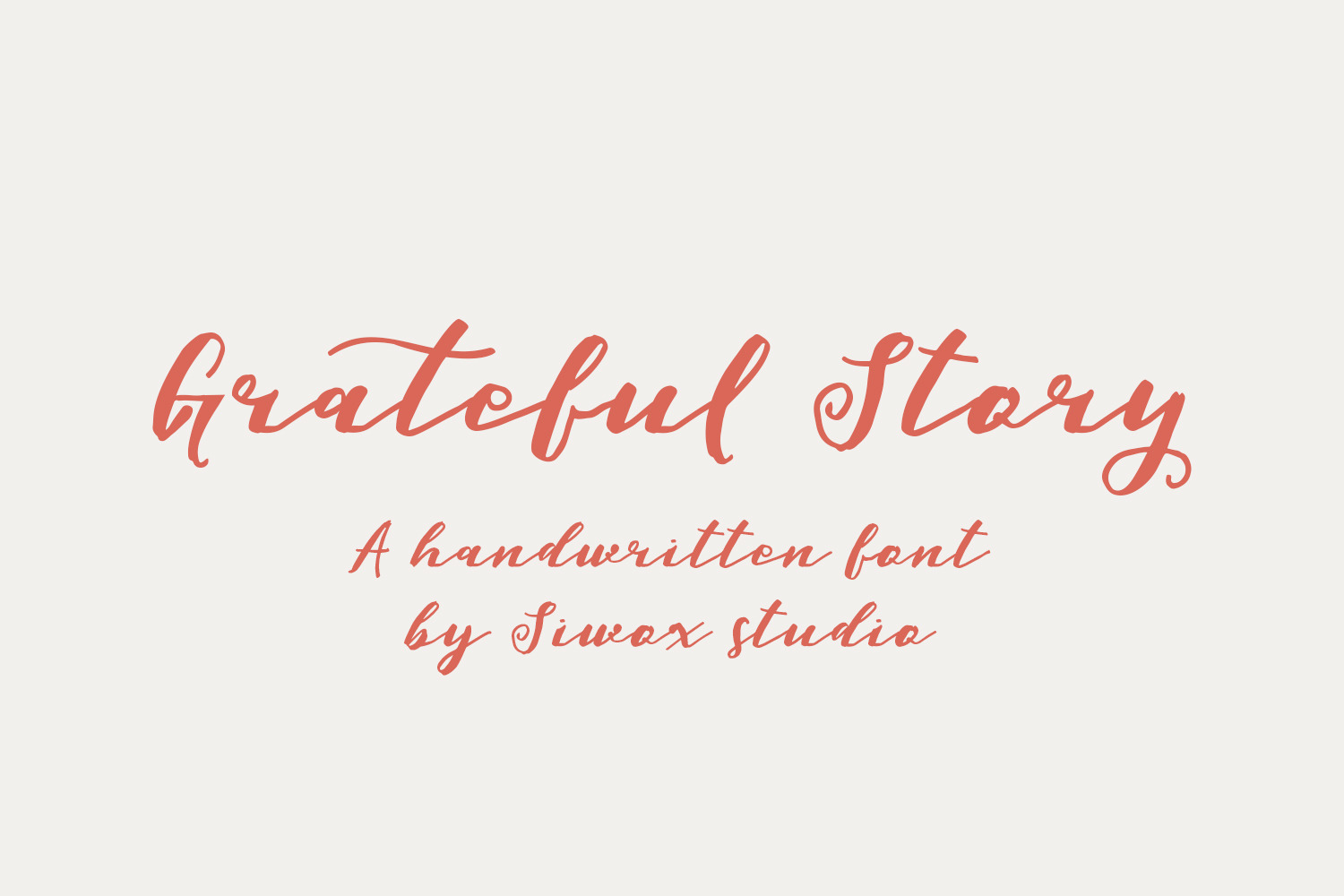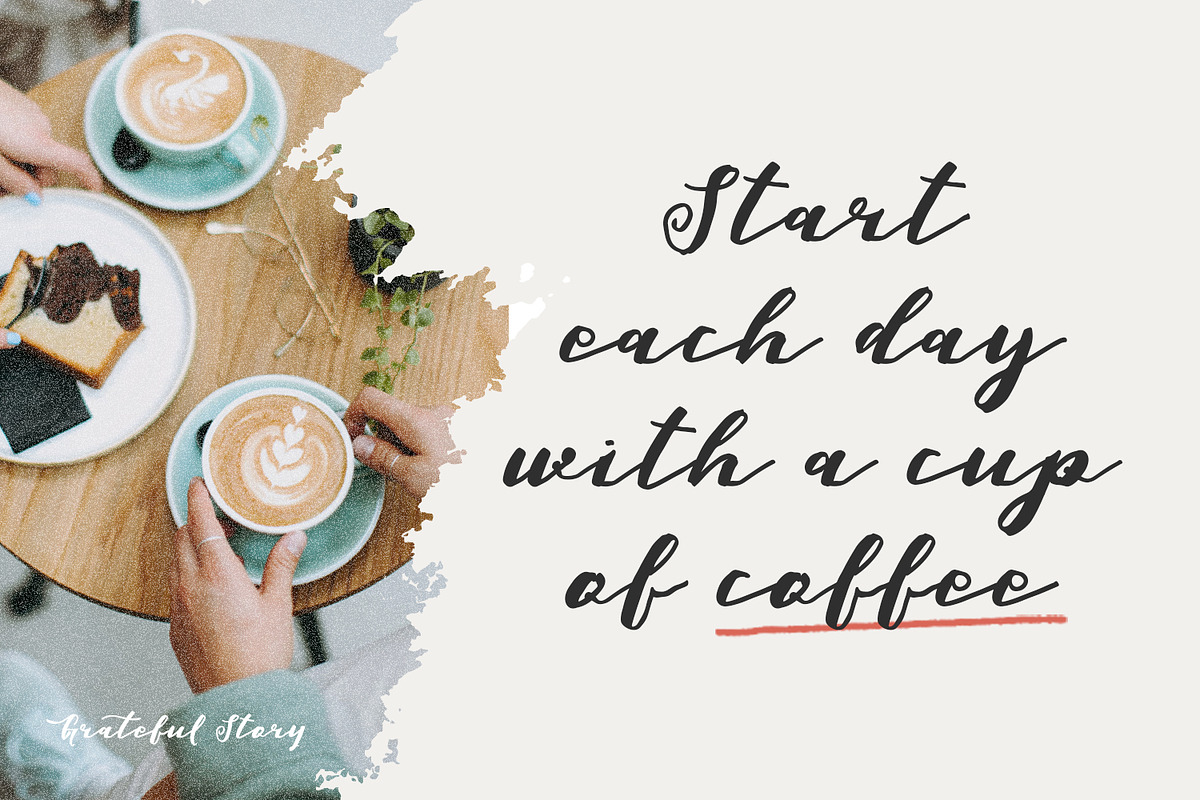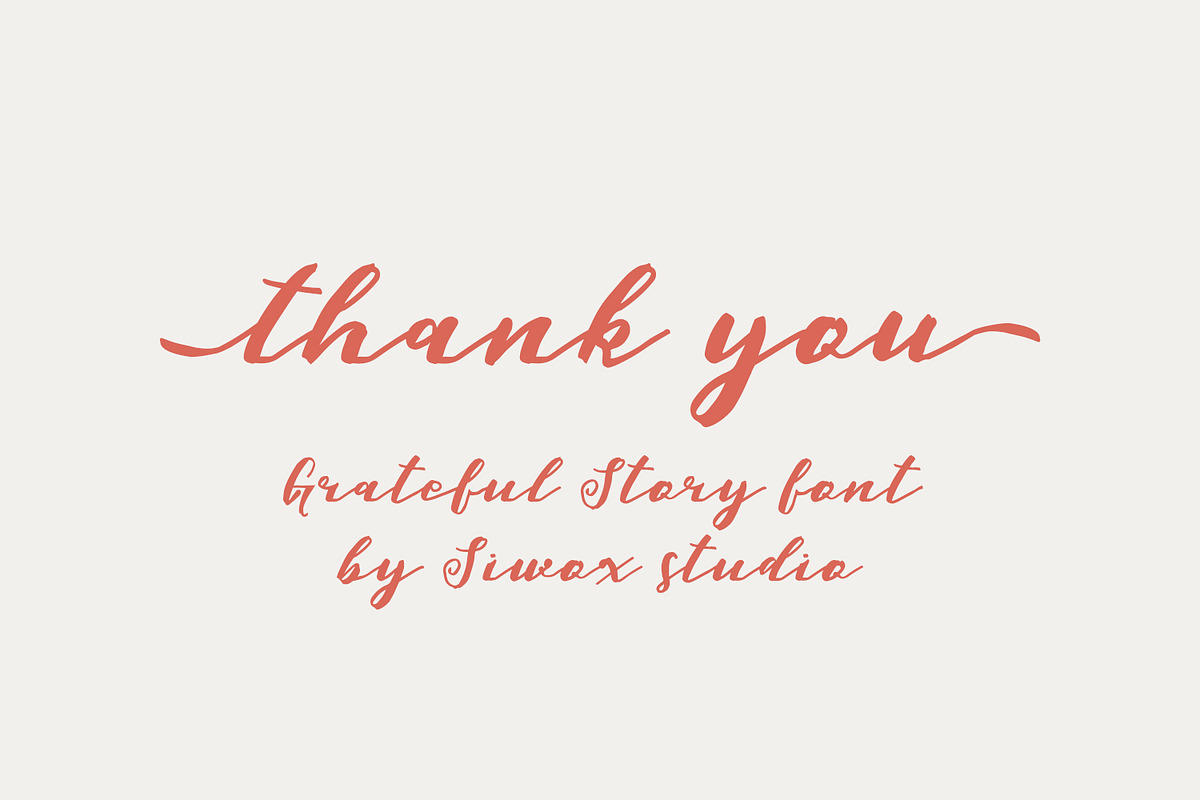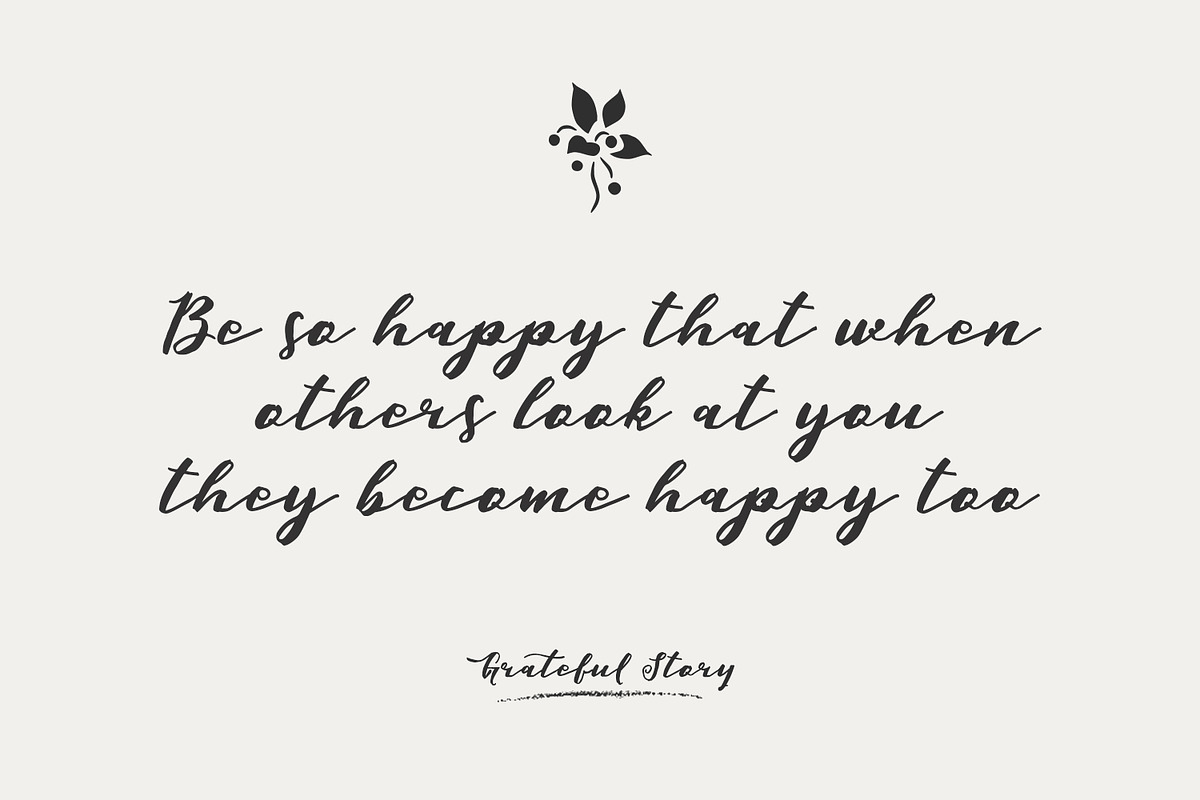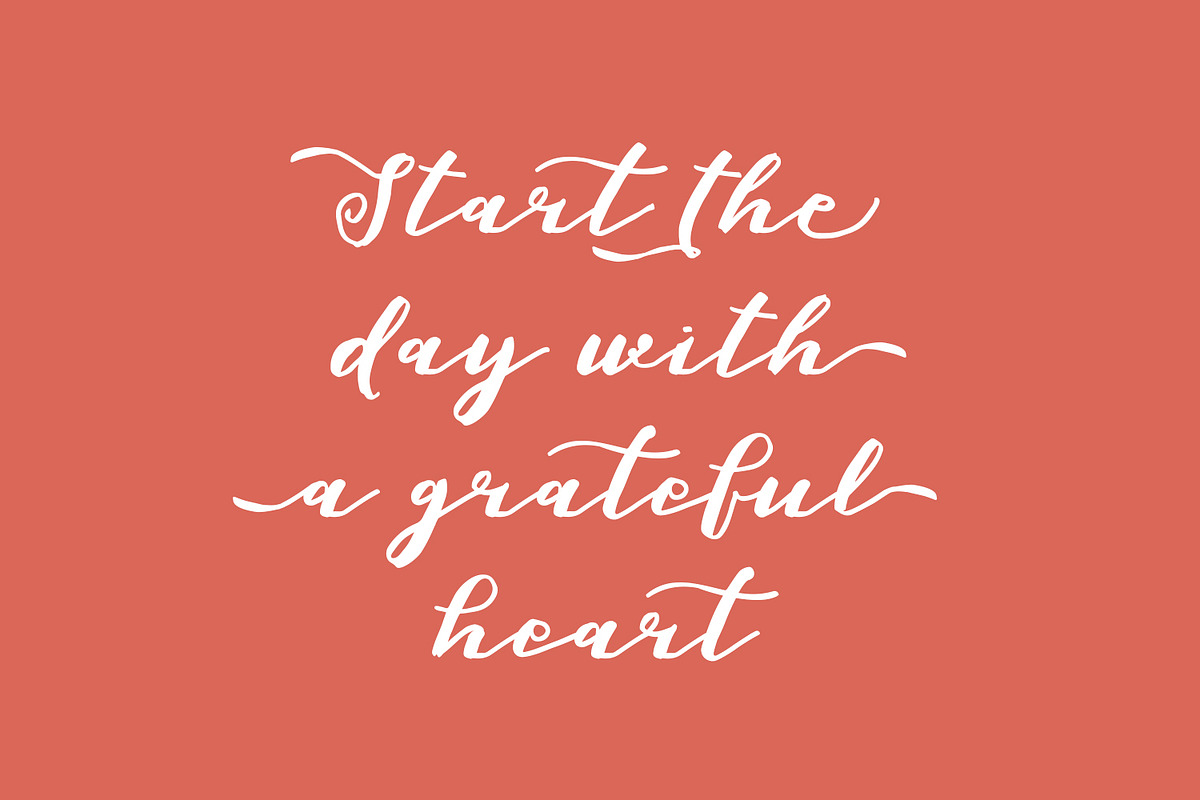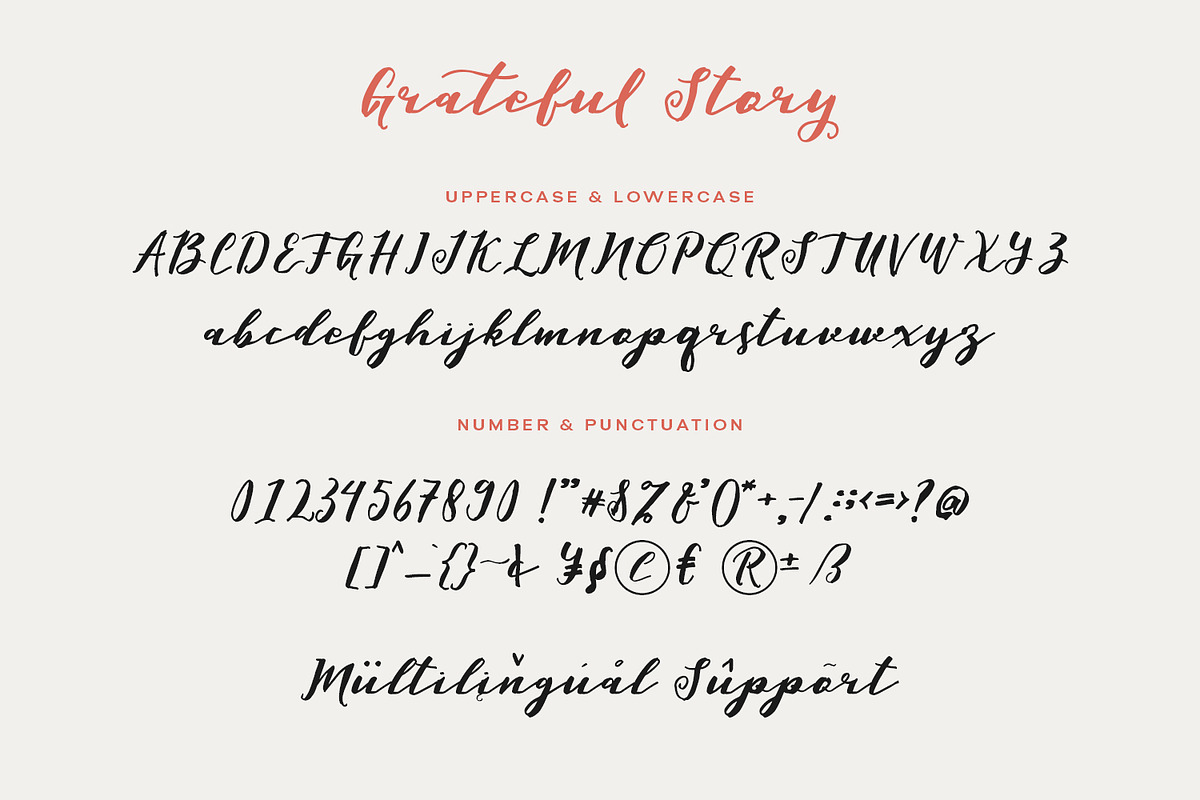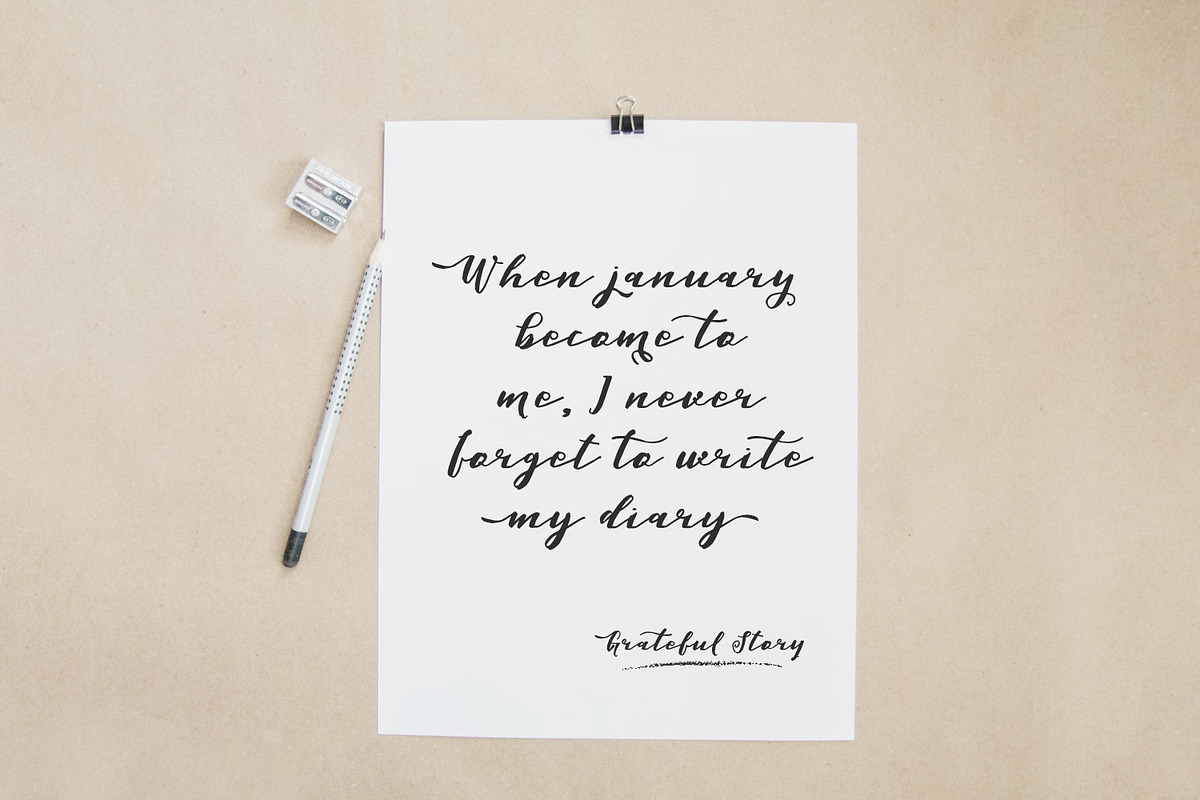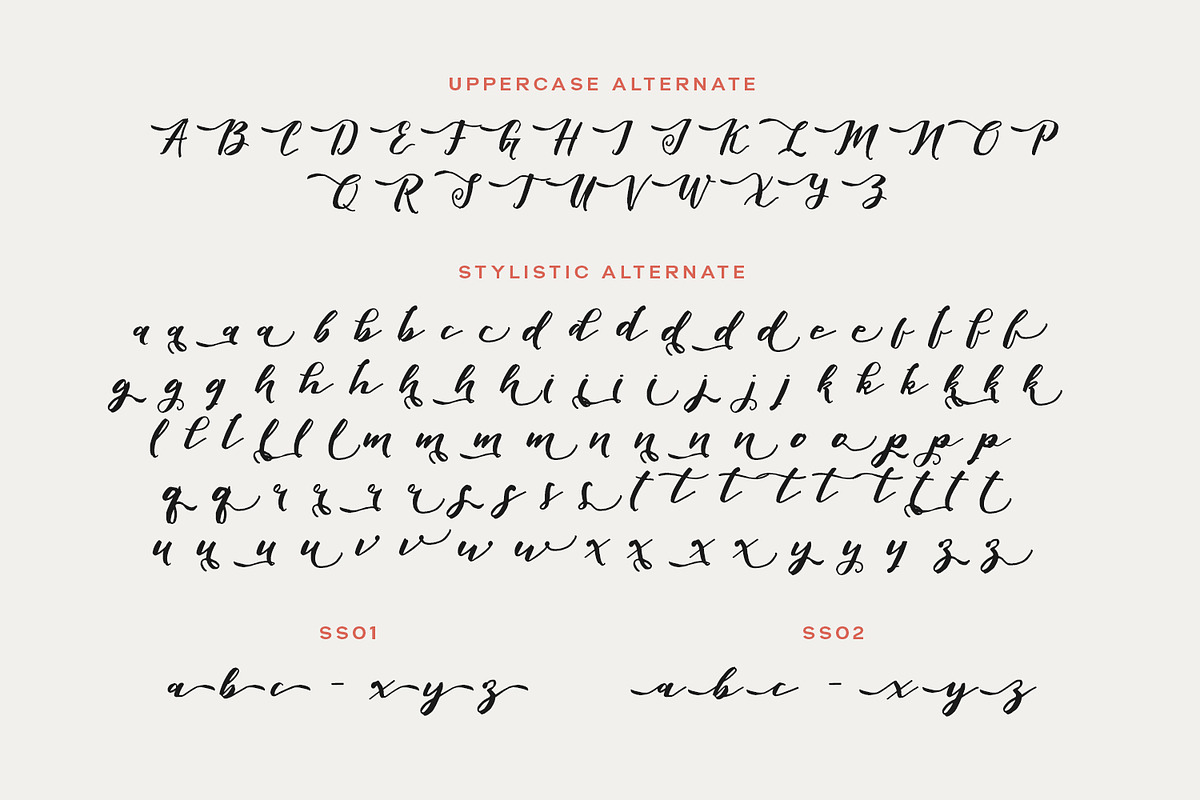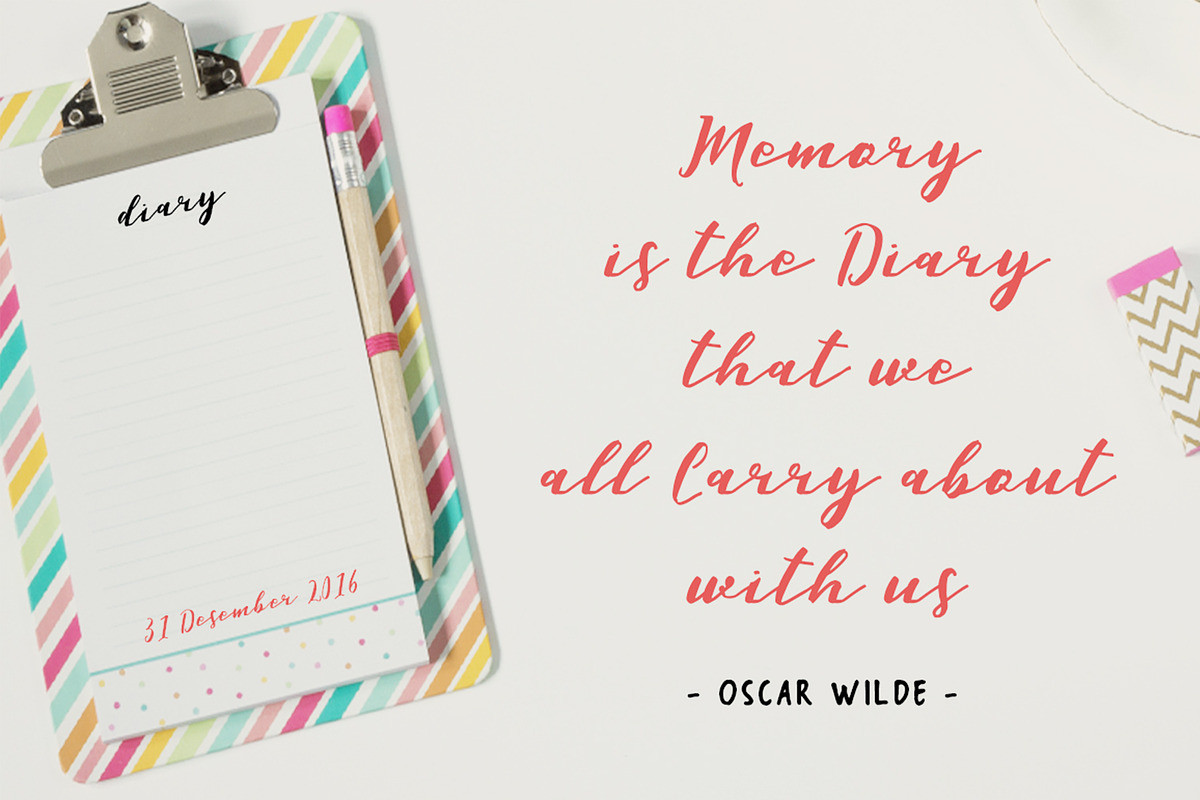
Grateful Story - a handwritten font
Grateful Story is a beautiful handwritten script font with charming, cheerful characters that seem to dance along the baseline. This font is PUA encoded which means you can access all the amazing glyphs and ligatures with ease!